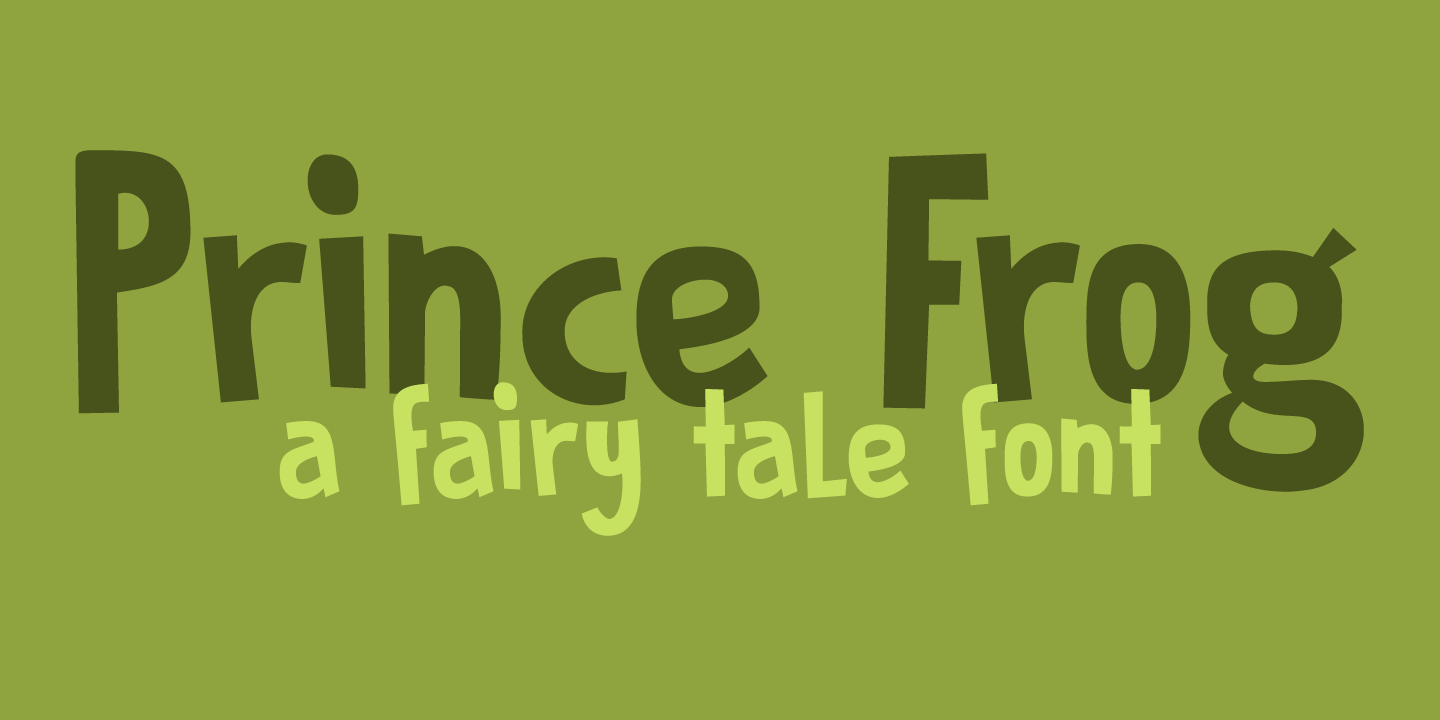
The Prince Frog Font is excellent for children's book illustrations, fairy tale branding, educational materials, toy packaging, nursery decor, children's app interfaces, whimsical greeting cards, and magical storytelling projects. This enchanting typeface works beautifully for projects that celebrate childhood wonder and fairy tale magic.
What makes Prince Frog Font exciting is its perfect blend of royal elegance and playful whimsy that captures the essence of fairy tale transformation. The font features charming letterforms that combine princely sophistication with amphibian-inspired curves, creating a magical atmosphere while maintaining child-friendly readability. Its delightful character brings joy and imagination to any design project.
The Prince Frog Font family includes various weights and styles: Regular, Bold, Light, Italic, Decorative, and Extended character sets with special fairy tale ornaments and crown elements. Each style maintains the font's magical royal-amphibian character while offering designers complete flexibility for creating enchanting brand systems and captivating typographic compositions.
Perfect for children's publishers, toy companies, and educational brands, Prince Frog Font Free Download provides designers with a whimsical solution for magical communication. The font's distinctive fairy tale character translates beautifully across digital platforms and print media, ensuring memorable brand presentation while conveying wonder and transformation in every application.